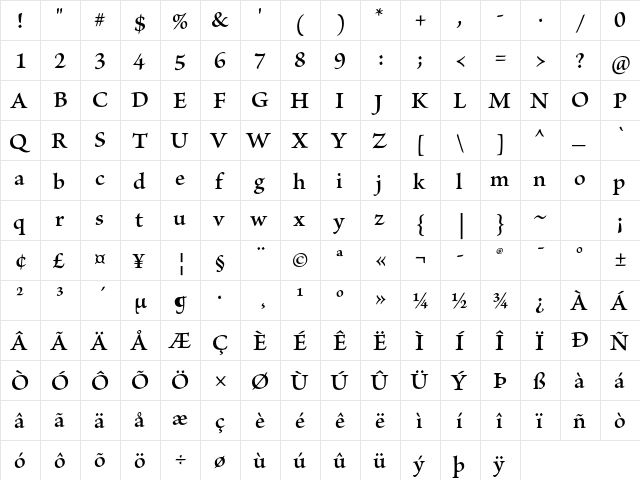
Brioso Pro Semibold
| Designer | Robert Slimbach |
Design Context for Brioso Pro Typeface
Brioso Pro offers clean, dependable letterforms without strong stylistic allegiance, making it a practical choice for designers who need flexibility. The heavy weight commands attention and anchors typographic hierarchies.